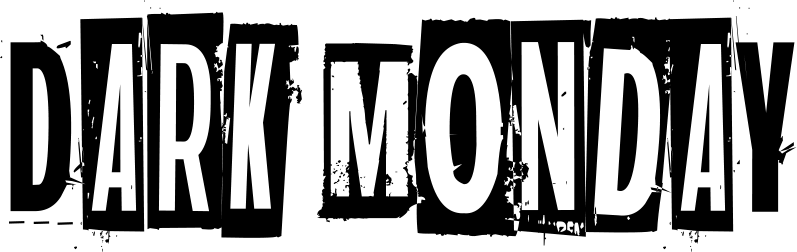
Dark Monday Font
Designed byJunkohanhero
For pulling out your typography of the hurt of monotony, punk fonts can act as a savior to make pleasing designs in many games, apps, software, or on YouTube, or digital banners as well.
Two different versions of Dark Monday font reach the place of action to bring variety to your displays. Although it doesn’t support lowercase letters, be sure it is valuable for whatever you need a messy grunge look or a boxy font style.